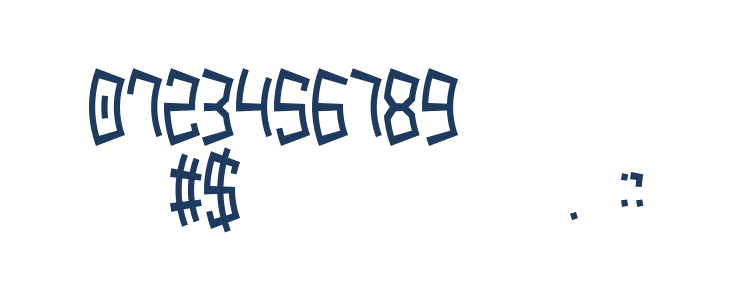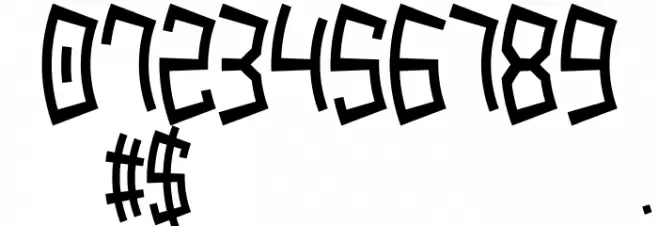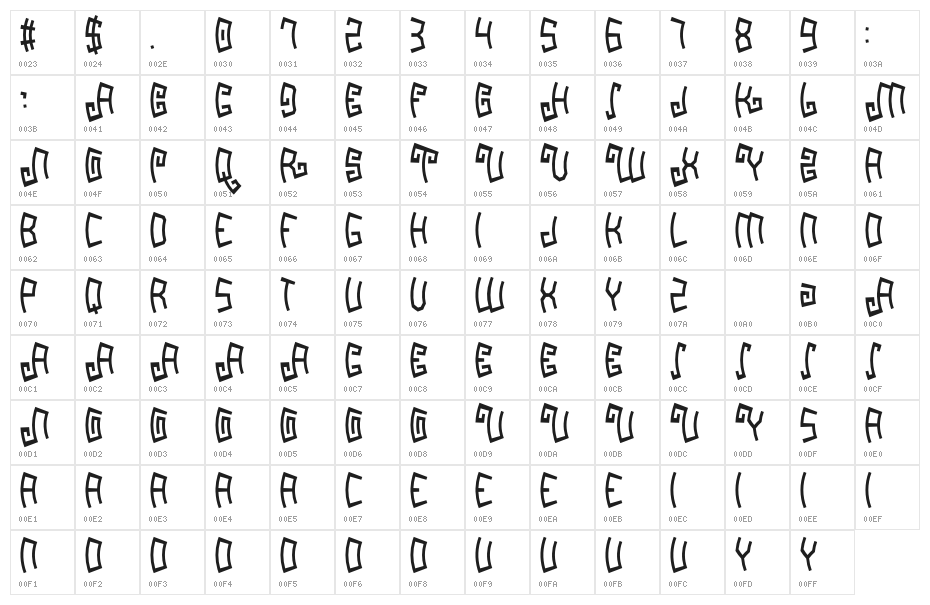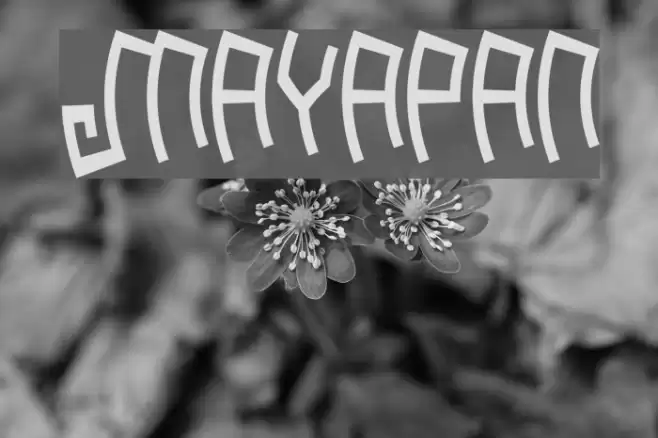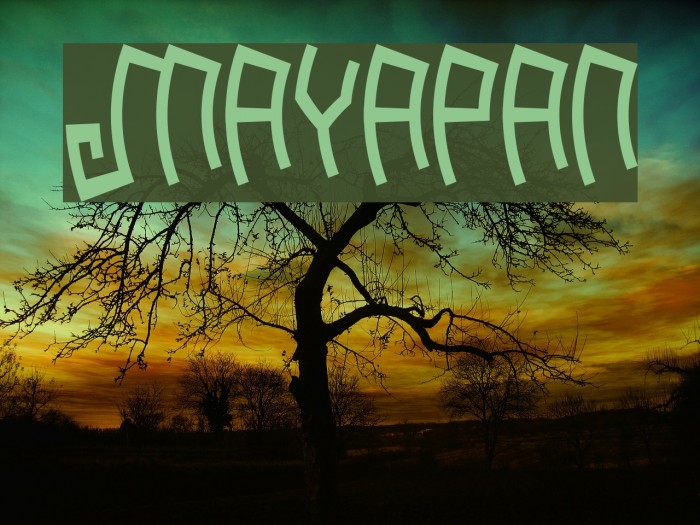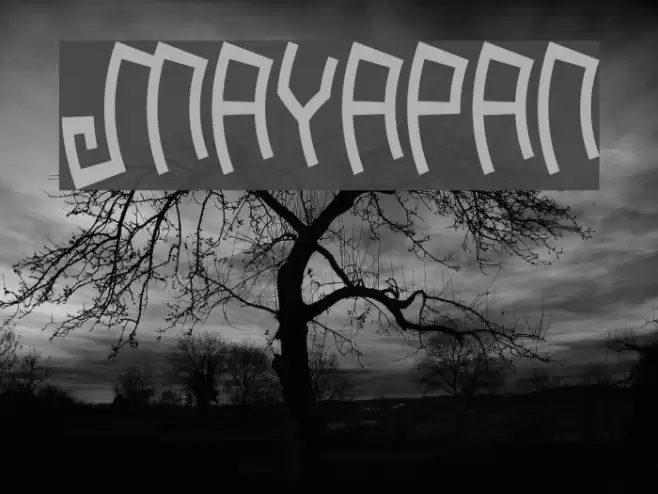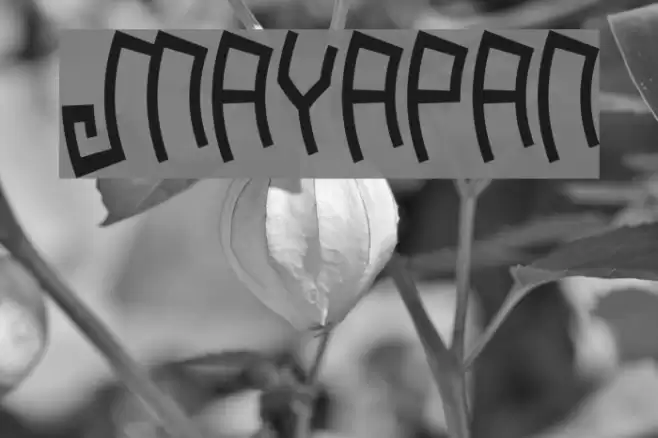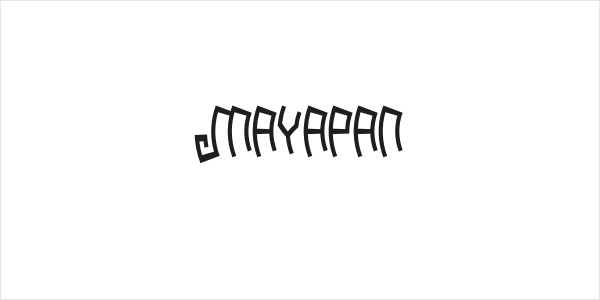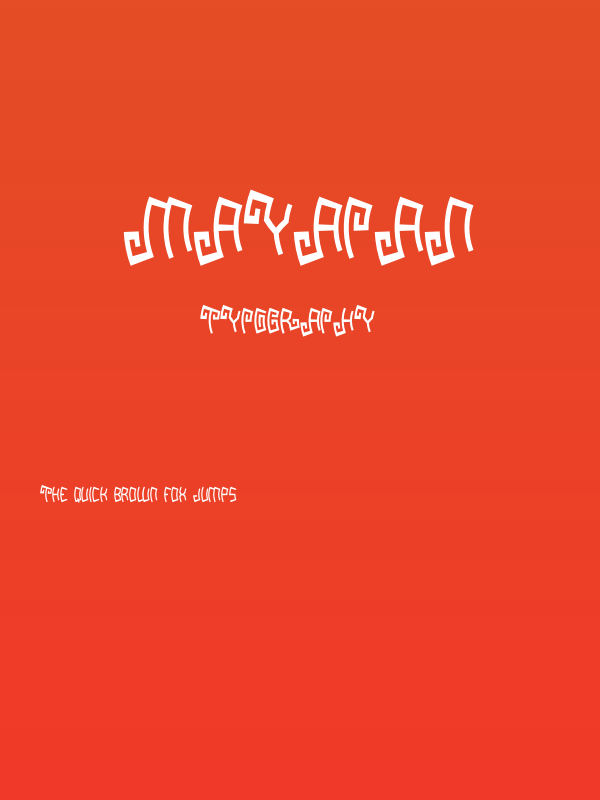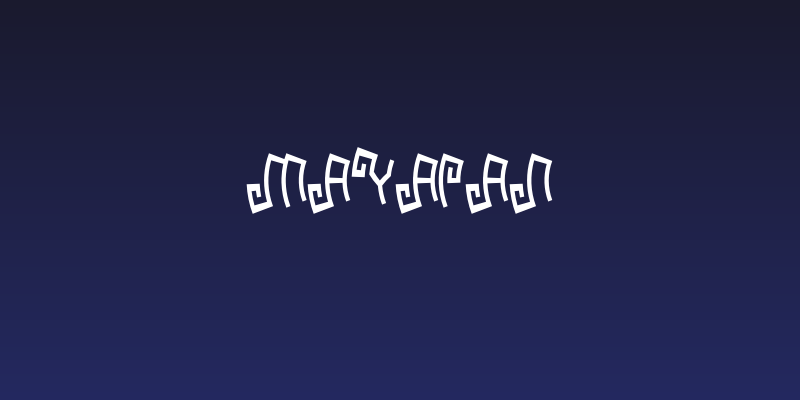
Mayapan Font
Mayapan Description
This font features a bold and angular design with a distinct geometric style. The characters are constructed with sharp edges and a consistent thickness, giving them a strong and impactful appearance. The uppercase and lowercase letters maintain a uniform height, enhancing the cohesive look of the typeface. The numbers and special characters follow the same design principles, ensuring a harmonious overall aesthetic. This font's unique style makes it suitable for projects that require a modern and edgy look.
| Proposed Projects | Ideal for branding, posters, album covers, and any design needing a bold, modern touch. |